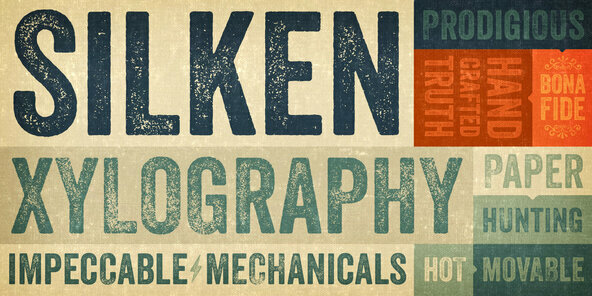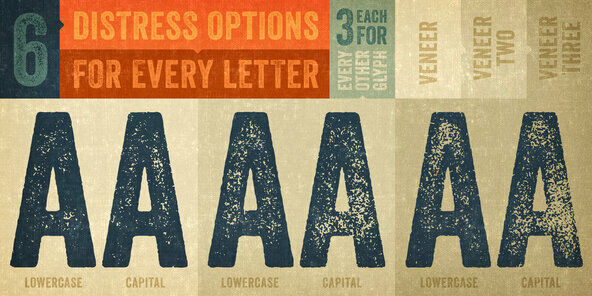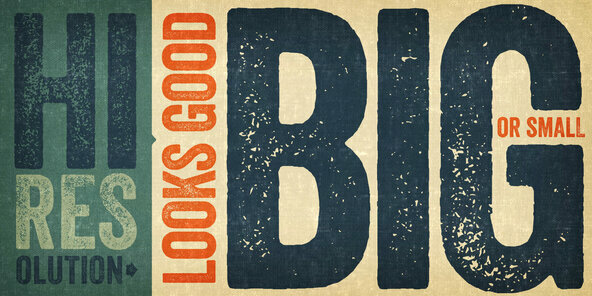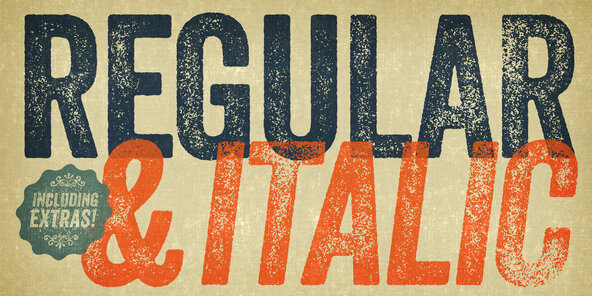
Veneer Font
Veneer is a registered copyright © 2015 Yellow Design Studio. All Rights Reserved. Veneer from Yellow Design Studio is a high resolution hand-crafted letterpress font that's vintage and authentic with a touch of grunge. It's highly customizable with six distress options for every letter and three for all other characters, and because it's remarkably detailed, it looks great even at very large sizes. In addition it includes a matching set of funky extras...for free! The Veneer family includes Veneer, Veneer Two, and Veneer Three with Veneer containing the least distressed characters and Veneer Three the most. Mix and match as desired to create realistic letterpress type. TIP: In Photoshop Veneer may look best with anti-aliasing set to "smooth". Because of Veneer's high level of detail, it may process more slowly in some applications.